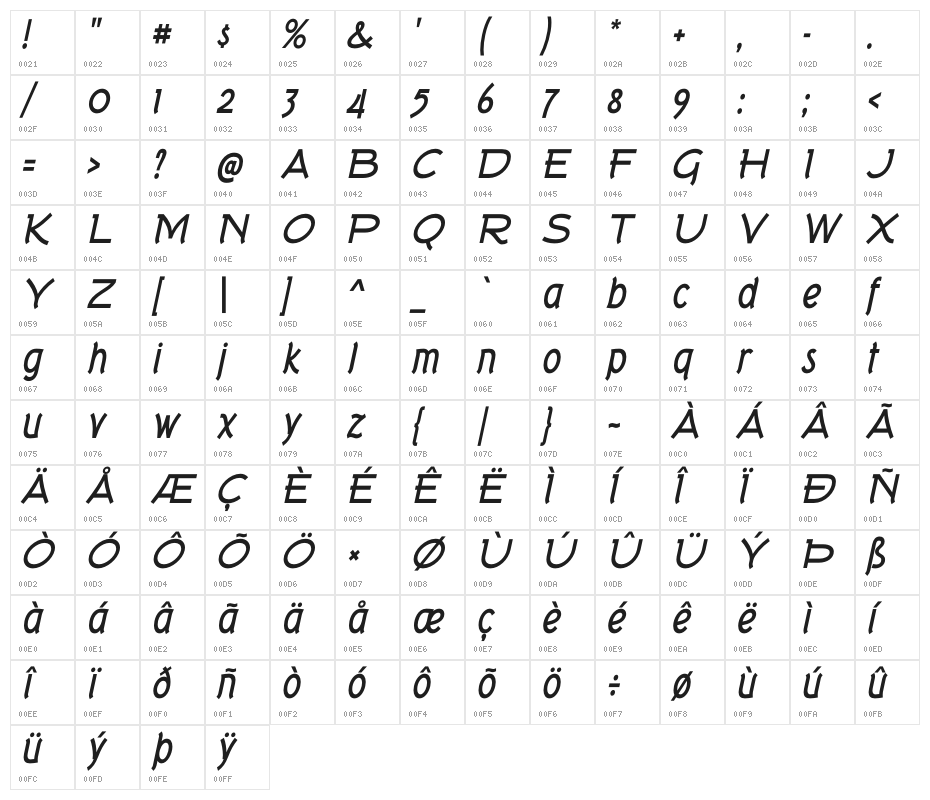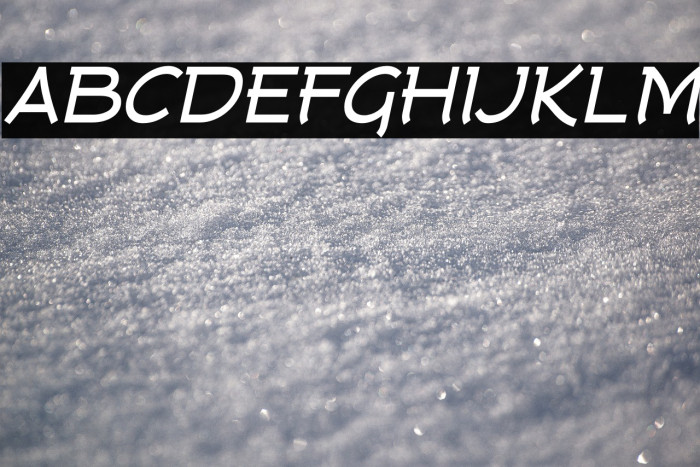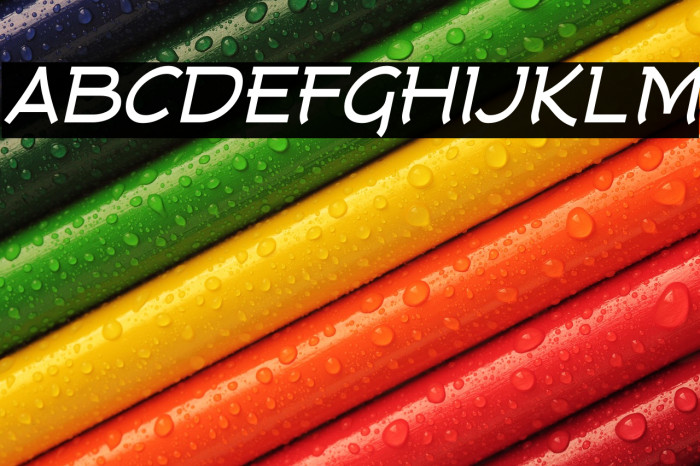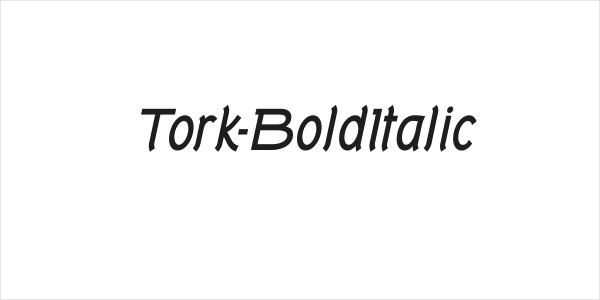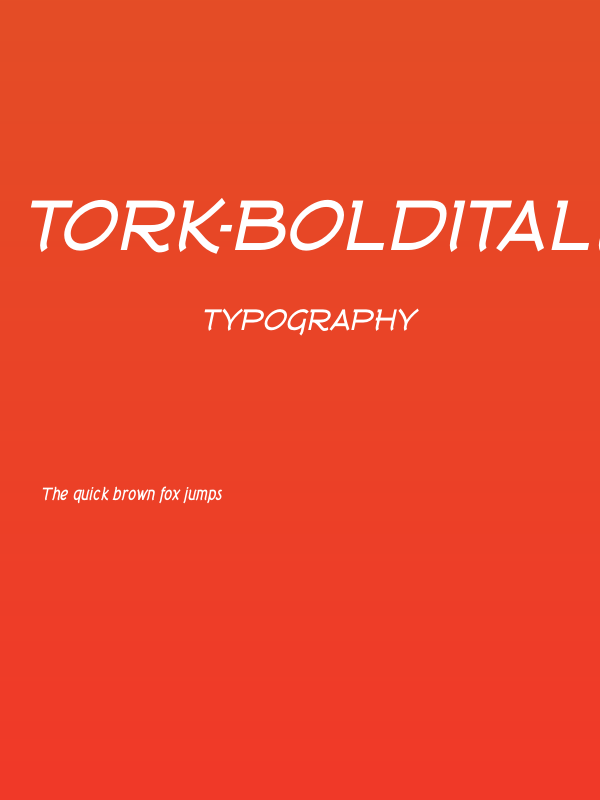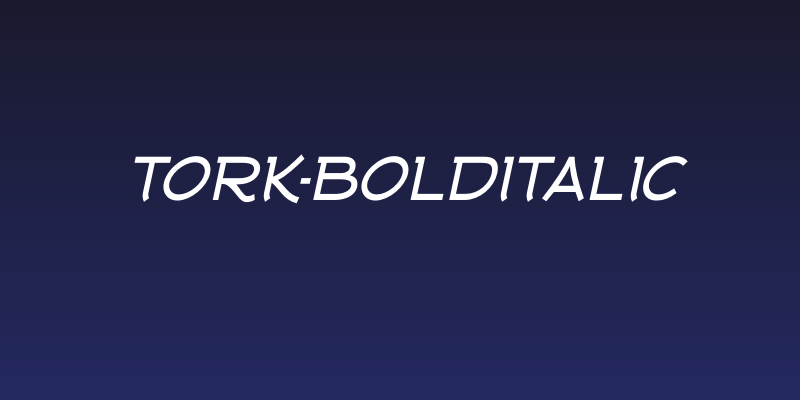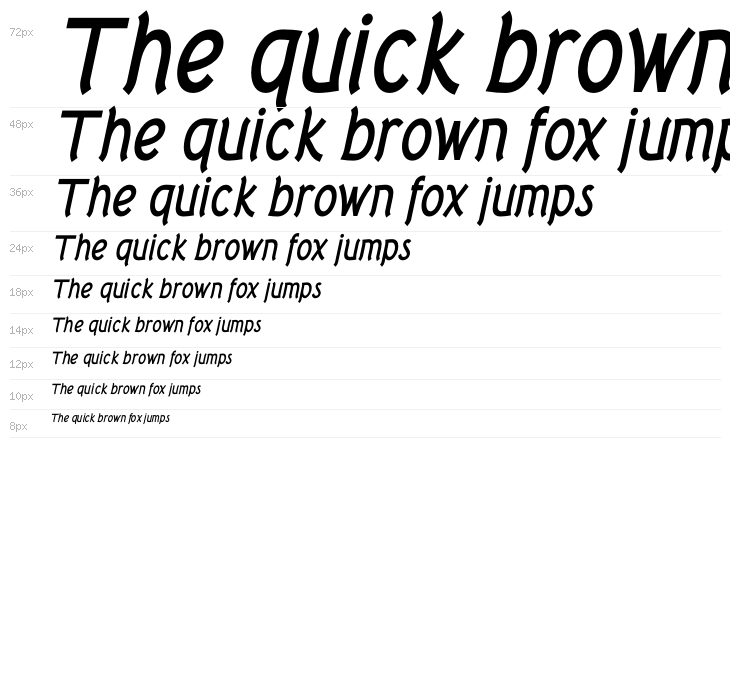
Tork-BoldItalic Font
Tork-BoldItalic Description
This font features a bold and italicized style, characterized by its dynamic and slanted letterforms. The uppercase and lowercase letters exhibit a consistent slant, adding a sense of motion and energy. The numerals are bold and clear, ensuring readability. Special characters are designed with the same boldness, maintaining uniformity across the font. The strokes are thick, providing a strong visual impact, while the overall design is modern and sleek.
| Use Case | Headlines, Logos, Advertising |
| Proposed Projects | Ideal for branding projects, dynamic headlines, and modern advertising campaigns. |